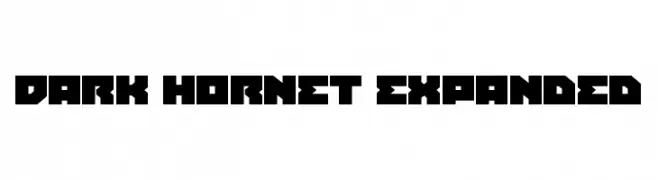
A bold, 3D italic font with a futuristic and dynamic style.
A bold, geometric, and condensed font with sharp angles.
A bold, geometric, and italic font with a futuristic and aggressive style.
A bold, geometric font with a futuristic and industrial style.
A bold, expanded, and italicized font with a futuristic and angular design.
A bold, futuristic font with a striped, geometric design.
A bold, geometric font with a futuristic, line-patterned design.
A bold, italicized font with a futuristic gradient effect using horizontal lines.
A bold, italicized font with a gradient effect and futuristic design.
A bold, futuristic font with a halftone effect and geometric design.